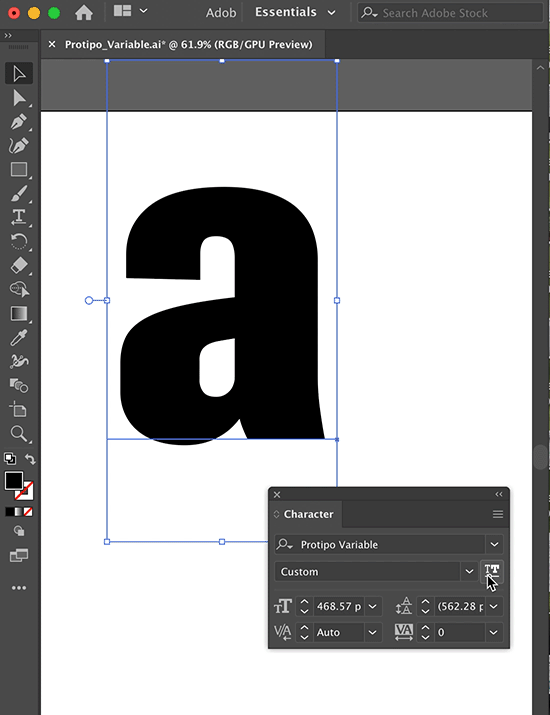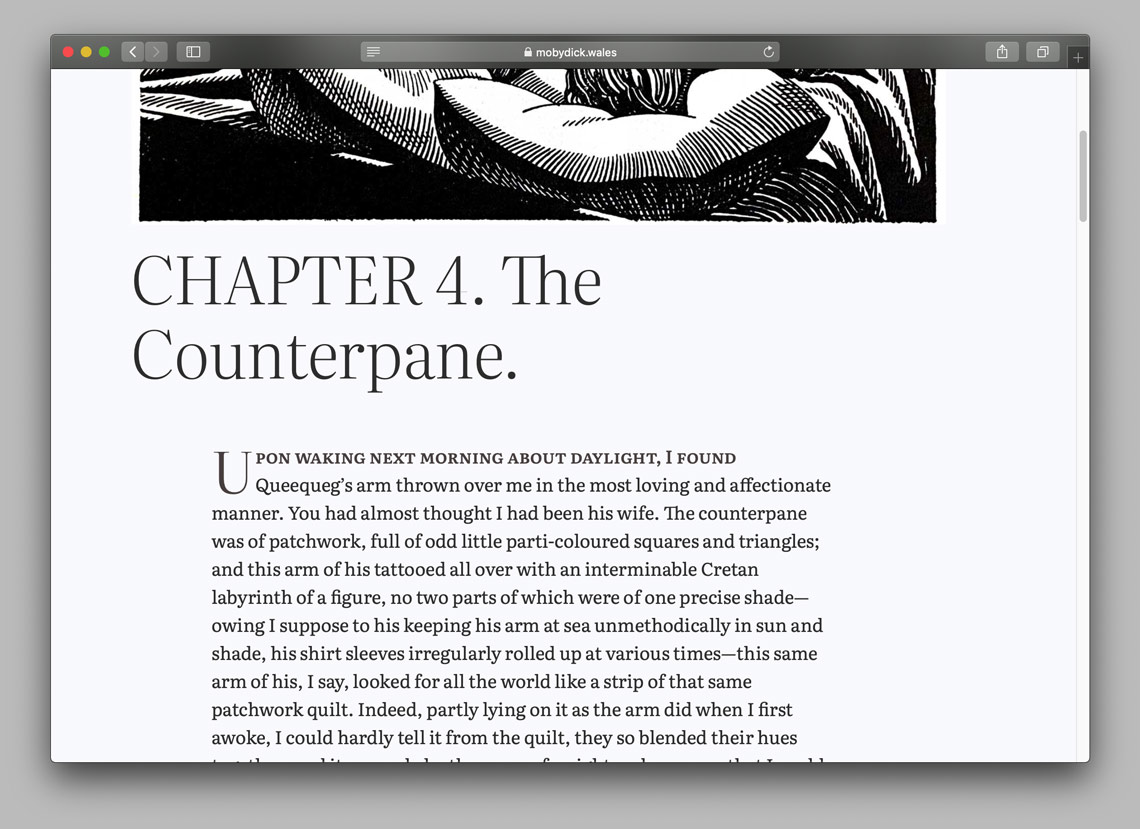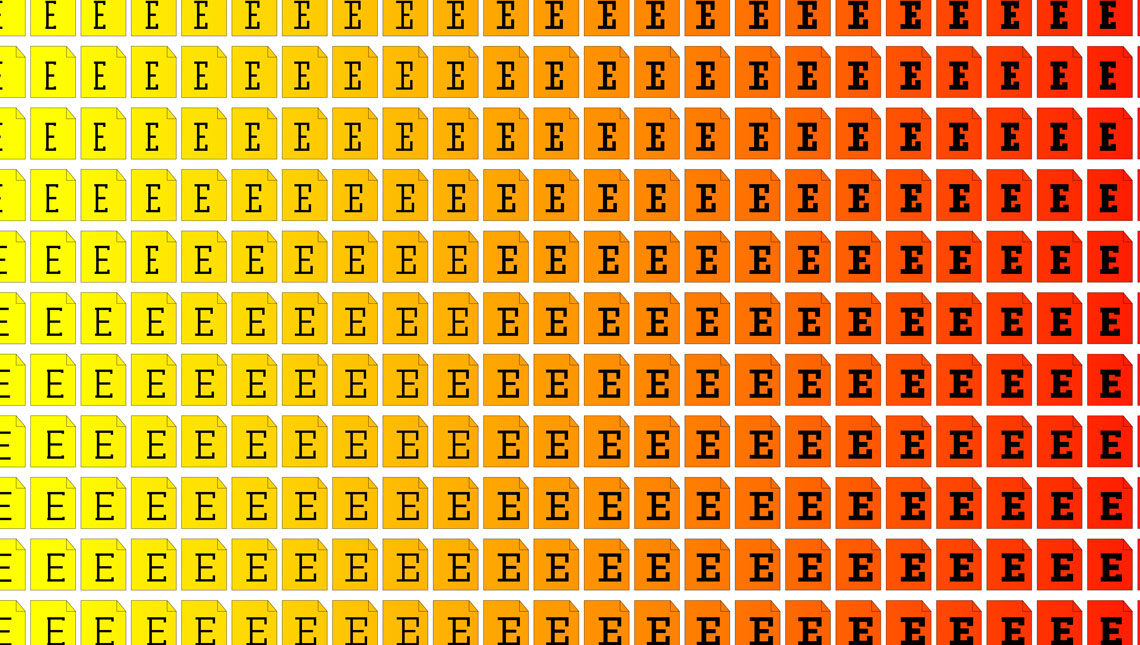
Variable fonts at TypeTogether
First, some notes about variable fonts
Let’s start with a quick reminder: what are variable fonts and why are they important? This new technology, added into the OpenType font format in 2016, is a compression mechanism that allows multiple individual fonts or styles to be packed into a single font file. These fonts are compatible variations of a design that can happen along one or many variation axes such as weight, width, or optical size, to name just some of the most common ones, but they aren’t limited to those axes. Font designers can define almost anything as an axis and cause the font to change along that spectrum.
There are many advantages to this new technology. The file size of a variable font containing many typographic styles is significantly smaller than having those styles as individual font files, hence reducing the required bandwidth for serving fonts to websites — or having a smaller file with more fonts on a mobile device, smartwatch, and the like.
But that’s not the whole story. To be fair, variable fonts do not just contain a series of compatible individual fonts, they allow designers to obtain a customized version of a font that exists within the design space: e.g. any weight between light and regular, or any width between narrow and condensed.
This dynamic selection of any instance of a font happens in real-time and effectively extends the typographic palette, allowing a whole new level of typesetting finesse. The expanded possibilities of this technology have encouraged the creativity of type designers even more, producing some interesting experimental and parametric designs.
When it comes to responsive design, we believe that variable fonts are the cornerstone of typographic composition. It allows slight changes in the letterforms themselves that are custom built for each device, screen size, and pixel density. To prove this we asked digital typesetting expert Jason Pamental to develop a technology demo for us. Check them out here:
This is Jason Pamental’s Moby Dick demo using Literata variable.
• Adelle Mono  — 2 axes: spacing from true monospaced width (Mono) to proportional width (Flex), and weight.
• LFT Arnoldo  — 1 axis: weight
• Bree, Bree Greek, Bree Cyrillic  — 1 axis: weight
• Catalpa  — 1 axis: weight
• Lektorat — 3 axes: text weight, text slant, and display weight/width
• Literata — 2 axes: optical size and weight
• Portada  — 2 axes: optical size and weight
• Protipo — 2 axes: optical size and weight